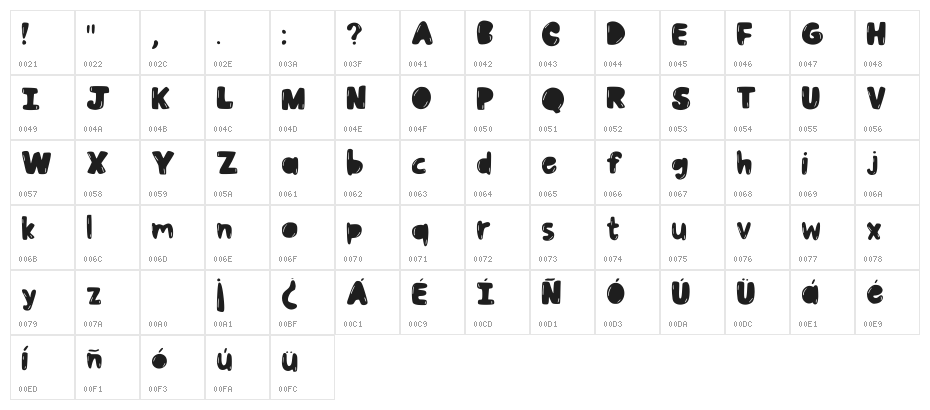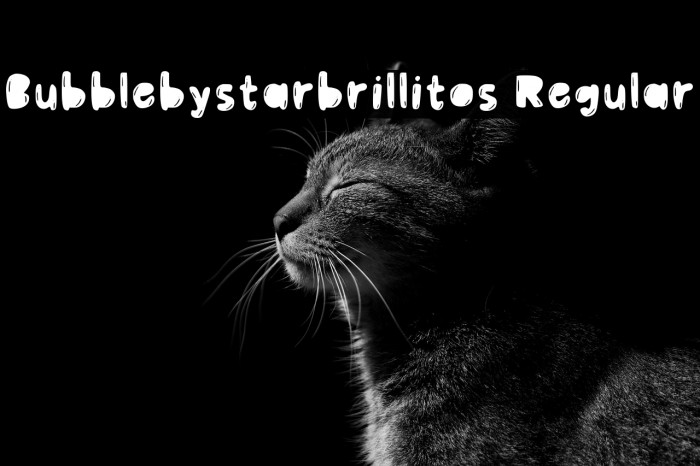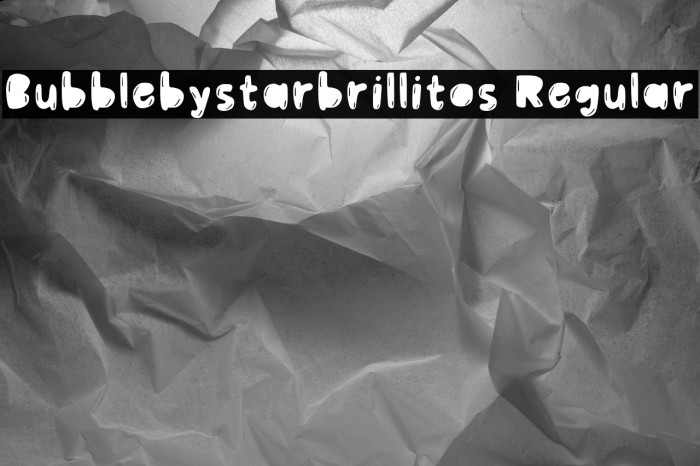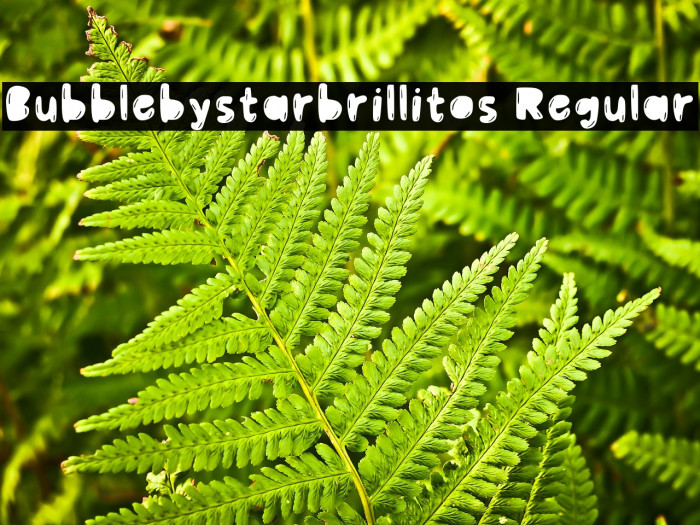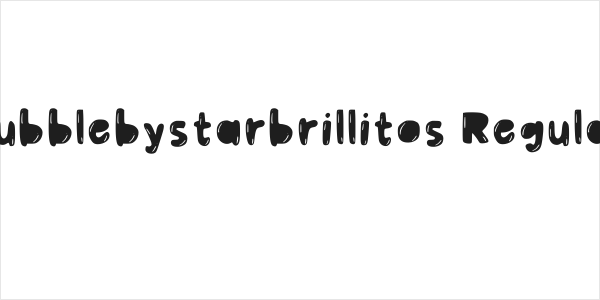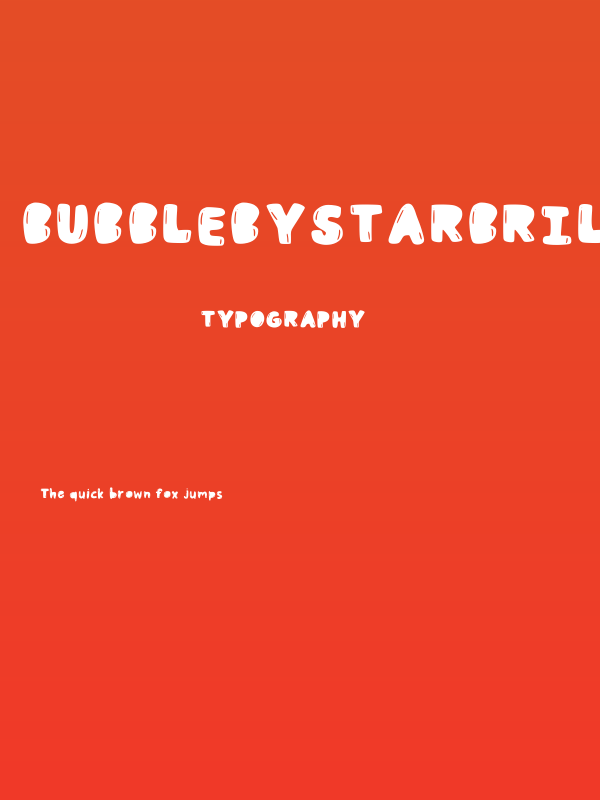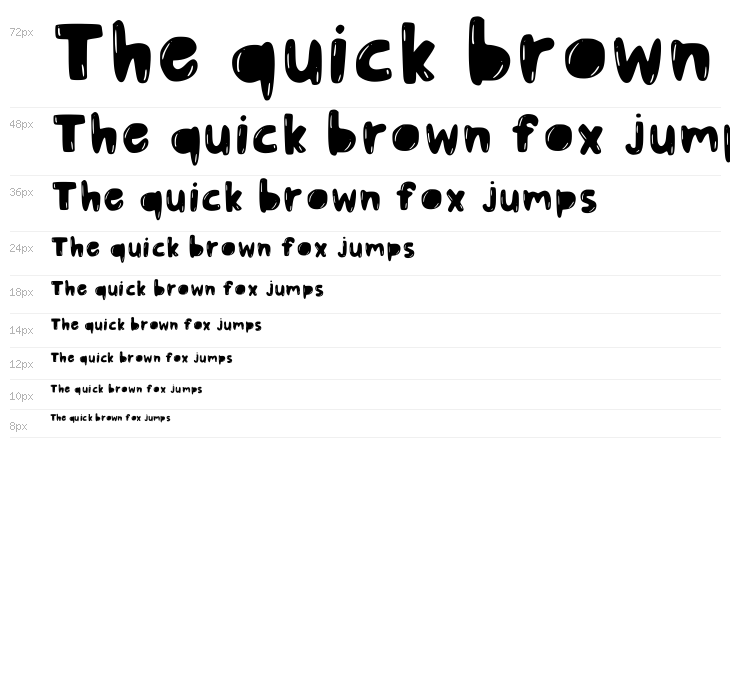
Bubblebystarbrillitos Regular Font
Bubblebystarbrillitos Regular Description
This playful and bold font features rounded, bubbly characters that exude a sense of fun and whimsy. The letters are thick and substantial, with a smooth, flowing style that gives them a friendly and approachable appearance. The font's unique design includes subtle variations in stroke width, adding a touch of dynamism and movement to the text. The overall look is reminiscent of hand-drawn lettering, making it ideal for projects that require a personal and creative touch. Its boldness ensures excellent readability, even at smaller sizes, while the rounded edges soften the impact, making it suitable for a wide range of applications.